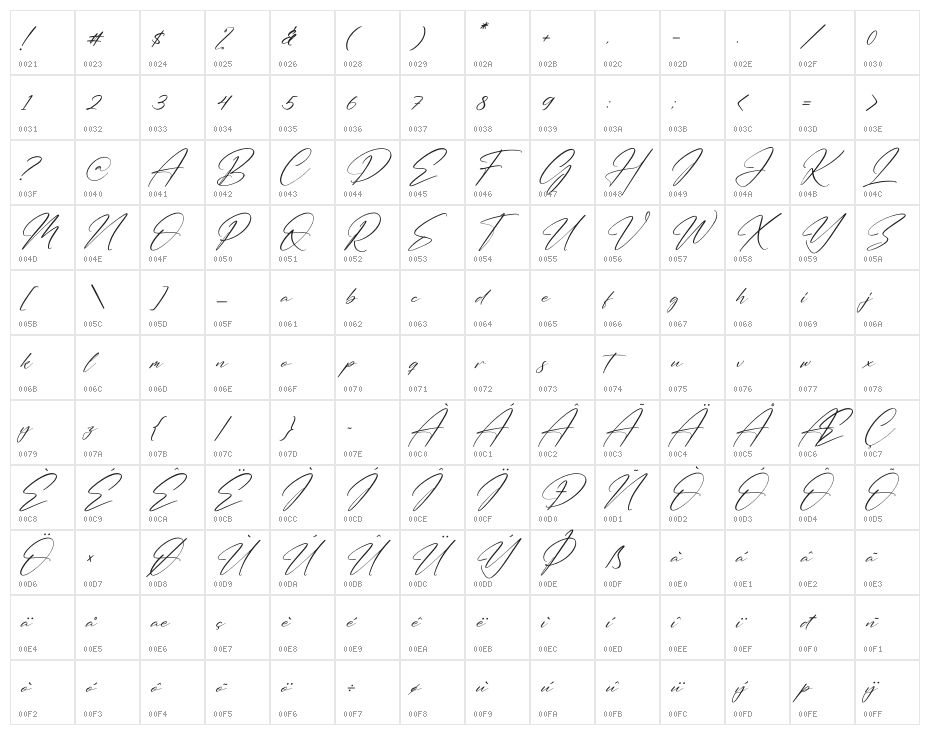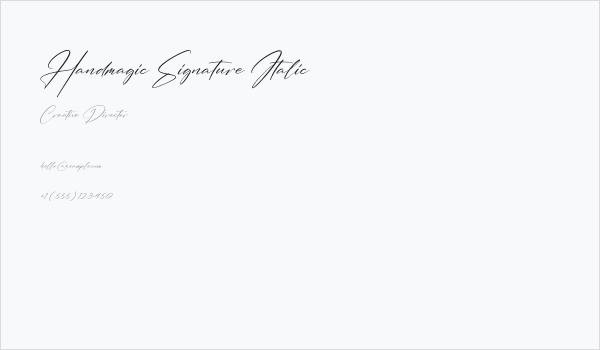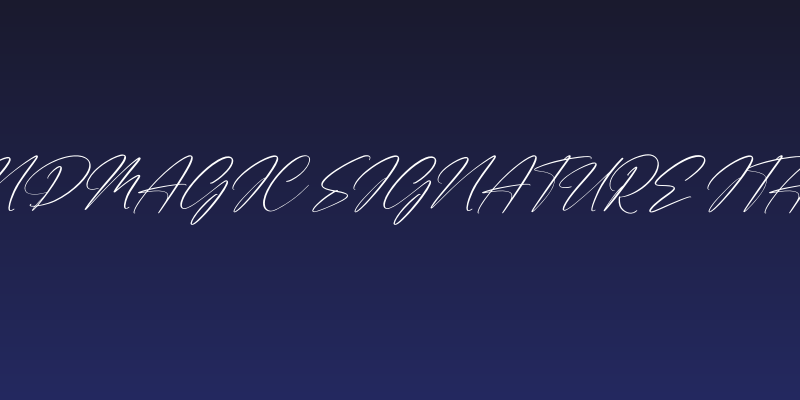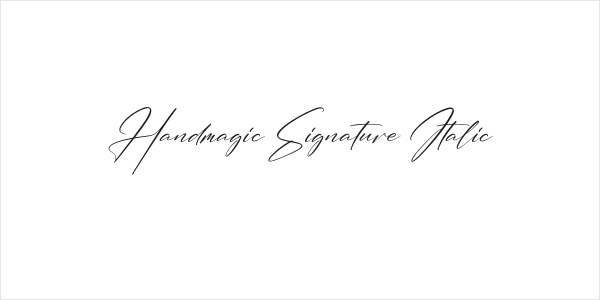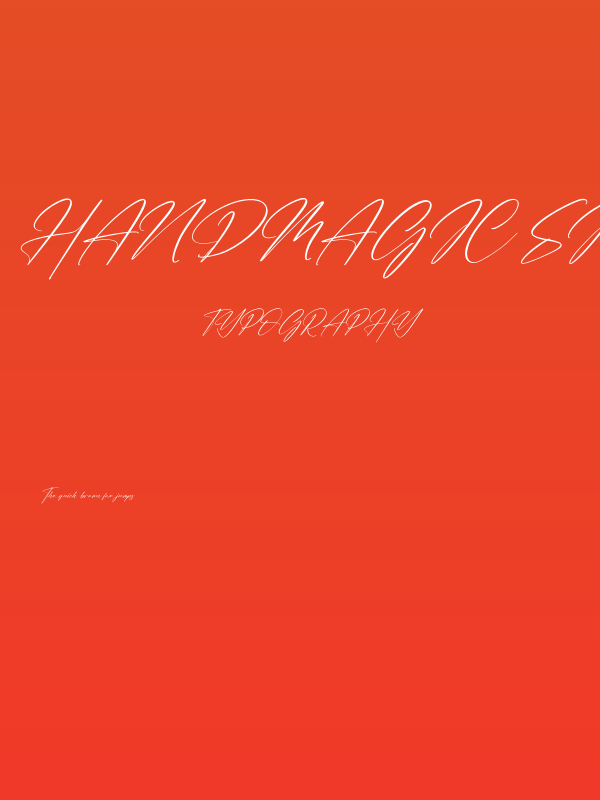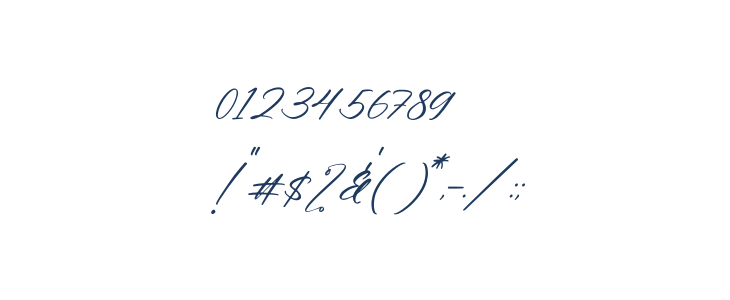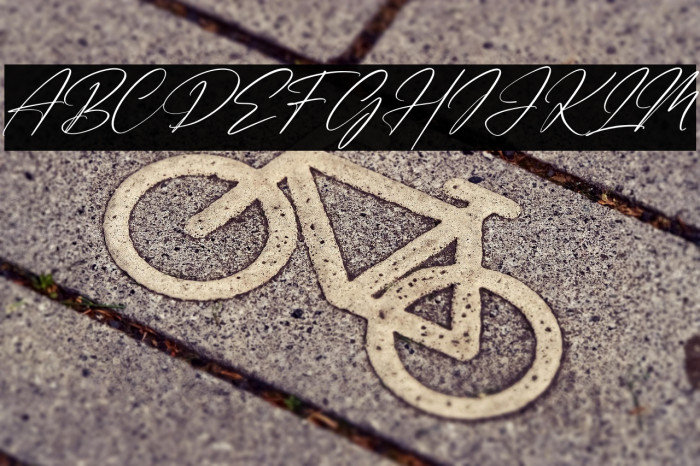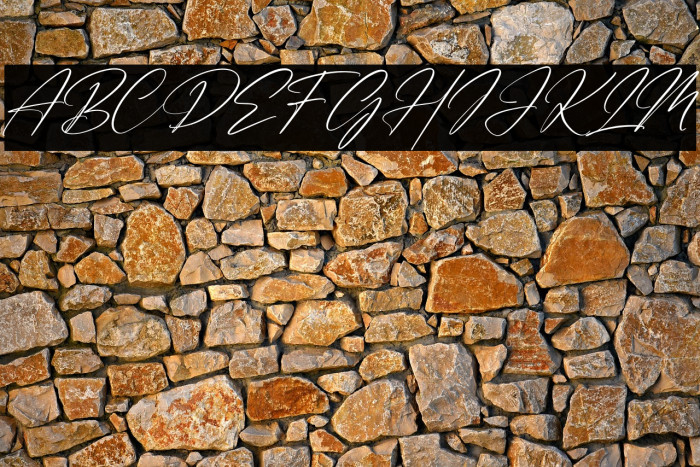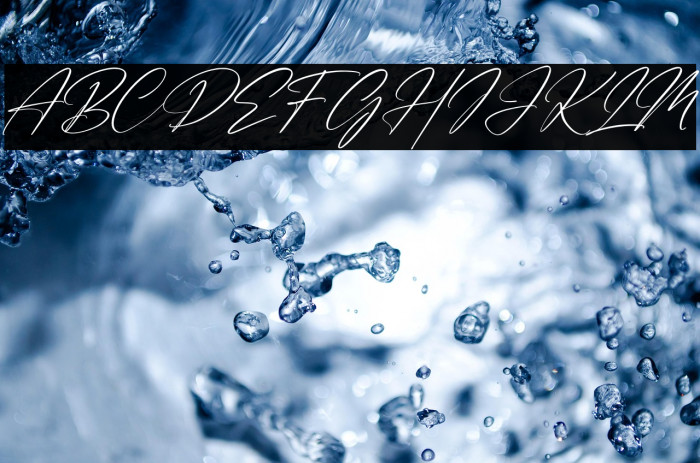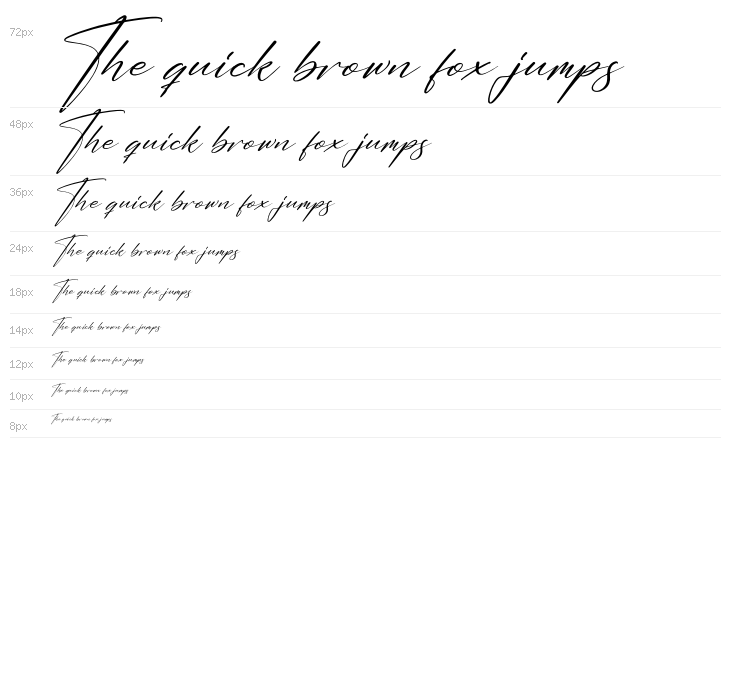
Handmagic Signature Italic Font
Handmagic Signature Italic Description
This font exudes elegance and sophistication with its flowing, cursive style. Each character is meticulously crafted, featuring smooth, sweeping lines that mimic the fluidity of a handwritten signature. The uppercase letters are bold and prominent, while the lowercase letters maintain a graceful continuity, enhancing the overall aesthetic. The numerals are distinct yet harmonize well with the alphabet, and the special characters add a touch of flair, making them suitable for various creative applications. The italic slant adds a dynamic and stylish touch, perfect for projects that require a personal, artistic feel.